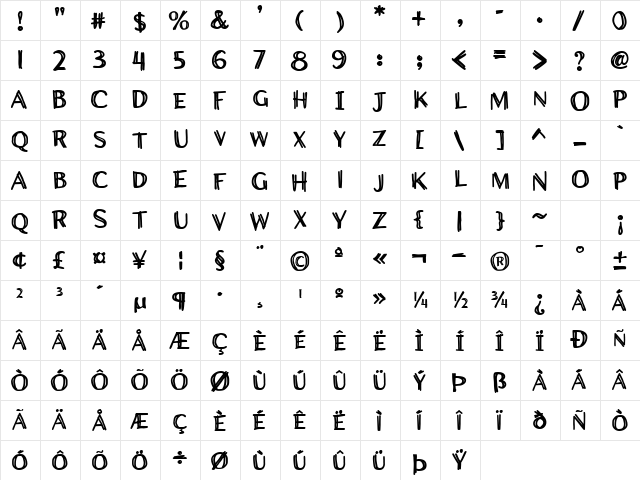
CCWiccanSansInt Bold Font Preview
CCWiccanSansInt Bold
CCWiccanSansInt Bold Font Details
Design Context for CCWiccanSansInt Typeface
CCWiccanSansInt is a composed and adaptable typeface that performs quietly and consistently across a wide range of design contexts. Its bold stroke weight gives it real presence on the page.